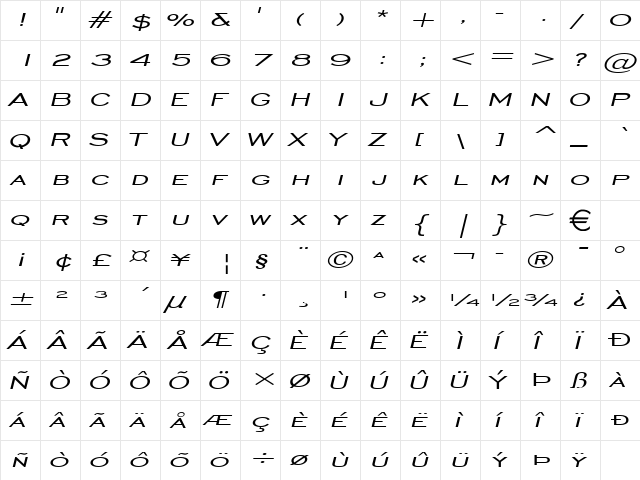
ChiselExtended Italic
Design Context for ChiselExtended Typeface
ChiselExtended offers clean, dependable letterforms without strong stylistic allegiance, making it a practical choice for designers who need flexibility. The dynamic lean of this cut emphasises speed and emphasis in any layout.
Pro Tip: Use ChiselExtended for emphasis, pull quotes, and subheadings where its slanted energy can add rhythm to the layout.